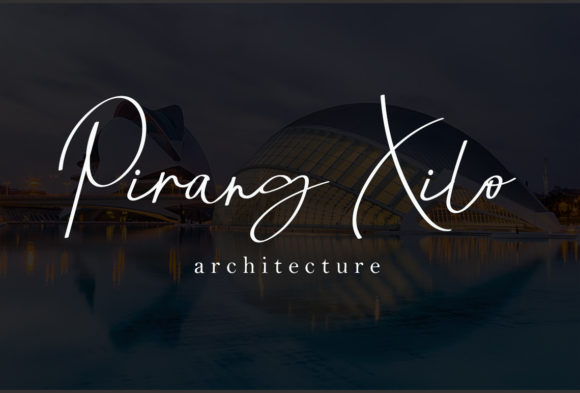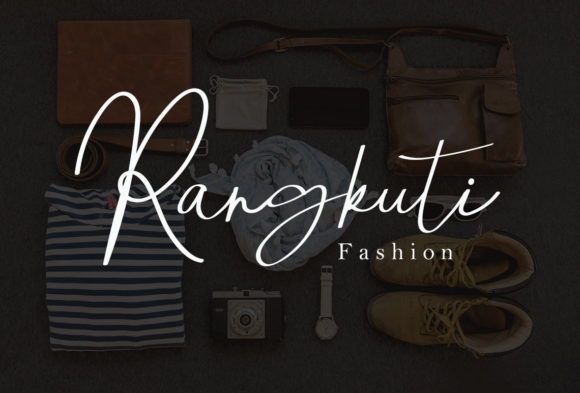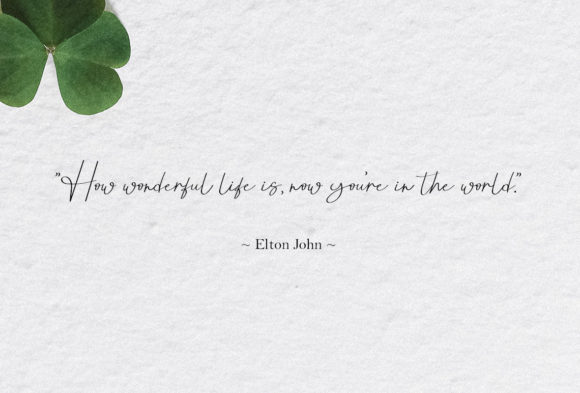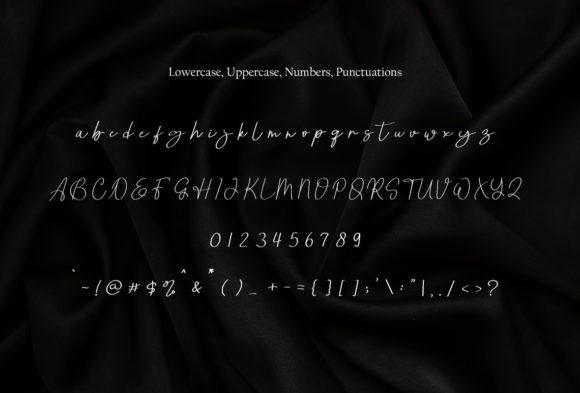
The Perfect Brushstroke: Unveiling the Bang Jonet Font
Have you ever been sitting at your desk, staring at a blank canvas, trying to come up with the perfect phrase to capture the essence of your brand or design? The struggle is real, but it’s moments like these that can spark creativity and lead to something truly special. For designers, the right font can be the key to unlocking that perfect phrase and bringing your vision to life.
Enter the Bang Jonet Font, a stylish and elegant handwritten font designed to make a statement. With its classy, modern look, this font is perfect for logos, branding, invitations, stationery, and wedding designs. The Bang Jonet Font is a valuable asset for designers, offering a level of sophistication and elegance that’s hard to find in other fonts. Plus, its PUA encoding means you can access all of its amazing glyphs and ligatures with ease, giving you the flexibility to get creative and push the boundaries of your design.
- Unique Characteristics: Bang Jonet Font features a modern and elegant design, with a focus on readability and clarity, making it ideal for body text and titles.
I recently had the chance to work with the Bang Jonet font, and I must say it’s a unique and interesting addition to any design project. ✨ One of the things that stands out about this font is its bold and playful personality, making it perfect for headlines and titles. The font’s curves and lines add a touch of elegance, while its modern feel keeps it fresh and relevant.
However, there are some limitations to consider. ⚠️ The font may not be suitable for body text due to its irregular letter spacing and character height. Additionally, the font’s lack of italics and bold weights may limit its versatility in certain design scenarios.
Here are some key points to keep in mind when working with Bang Jonet:
- Perfect for headlines and titles
- Unique and playful personality
- Modern and elegant feel
- Limited suitability for body text
- Lack of italics and bold weights
Overall, Bang Jonet is a solid addition to any design library. While it may not be the perfect font for every project, its bold personality and modern feel make it a great choice for designers looking to add some flair to their work.
The Bang Jonet Font is ideal for:
- Creating eye-catching headlines and titles.
- Adding a touch of elegance to your designs.
- Creating a unique and personalized brand identity.